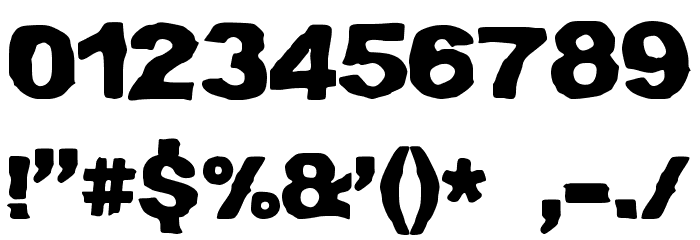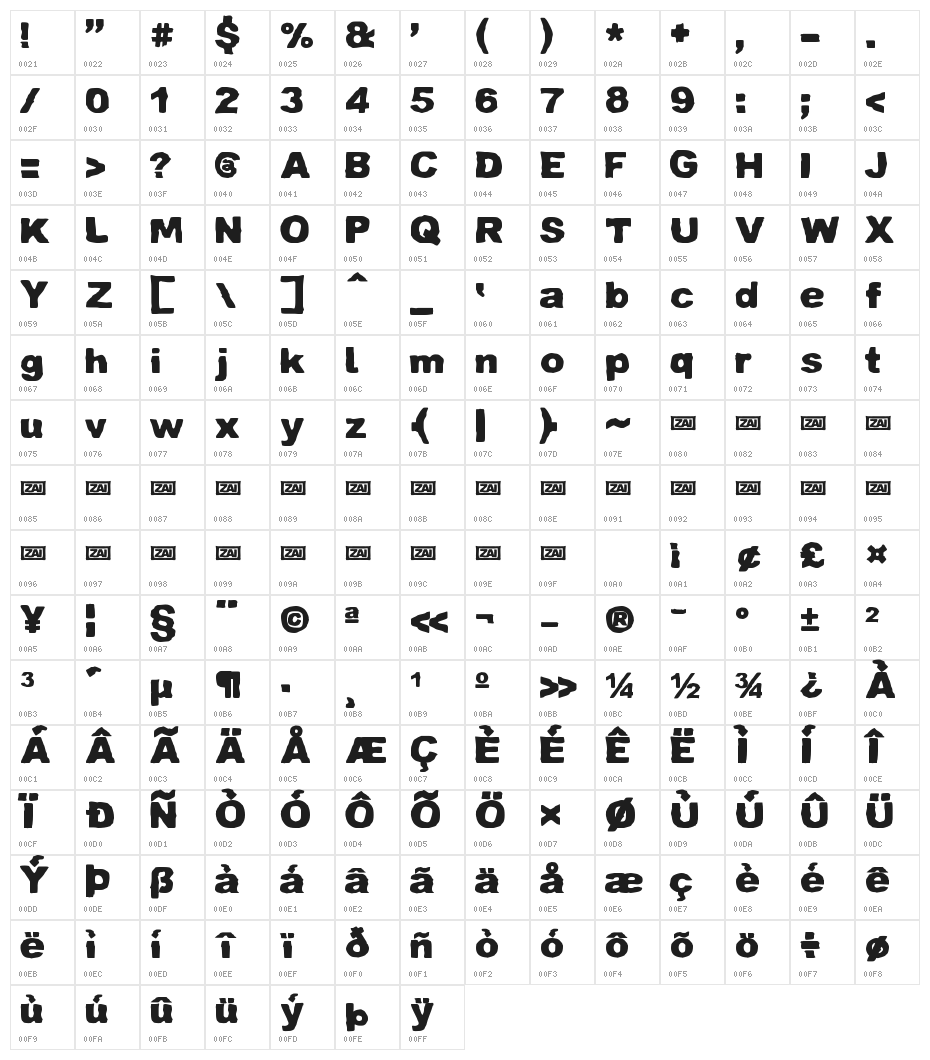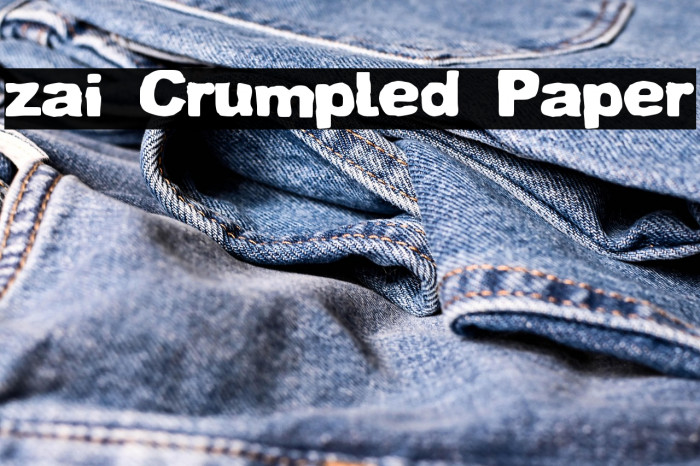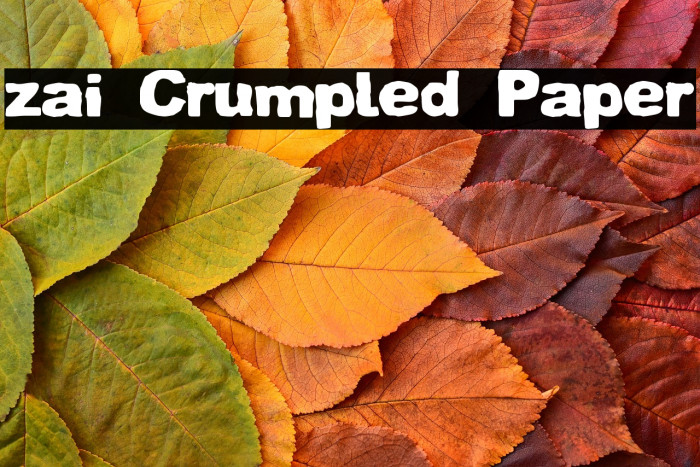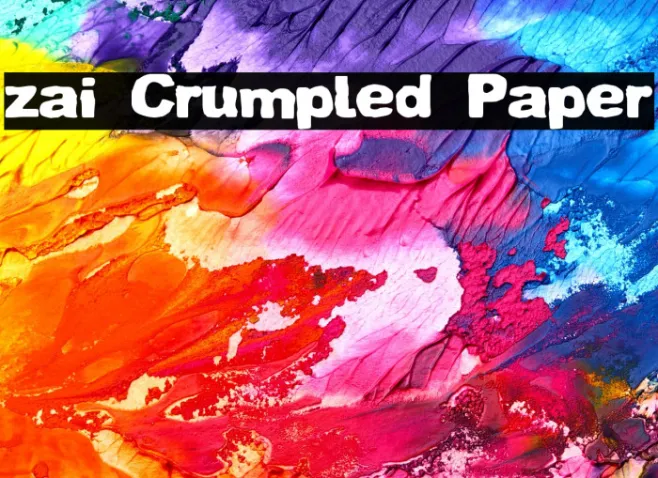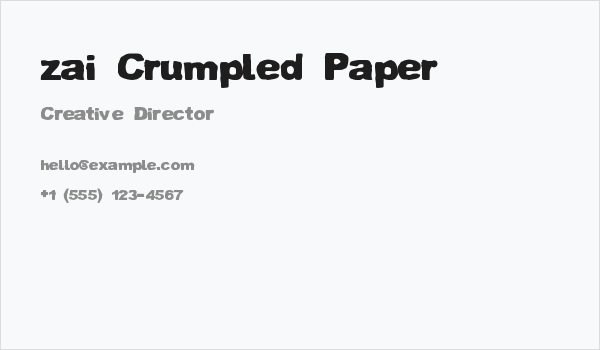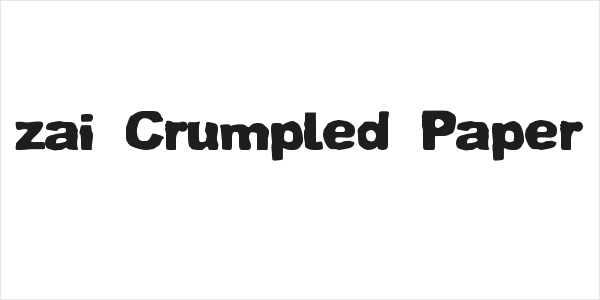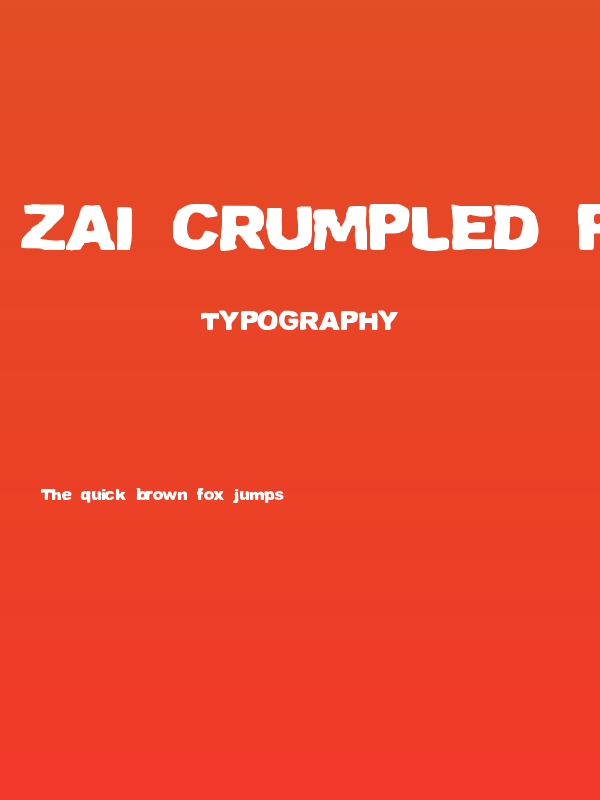
zai Crumpled Paper Font
zai Crumpled Paper Description
This font features a bold and playful design with a crumpled, textured appearance that mimics the look of paper. The characters are thick and rounded, giving a sense of fun and creativity. The irregular edges and unique texture make it stand out, providing a handmade, artistic feel. The uppercase and lowercase letters maintain a consistent style, while the numbers and special characters complement the overall design. This font is ideal for projects that require a touch of whimsy and individuality.
| Proposed Projects | Ideal for posters, children's books, creative branding, and artistic invitations. |